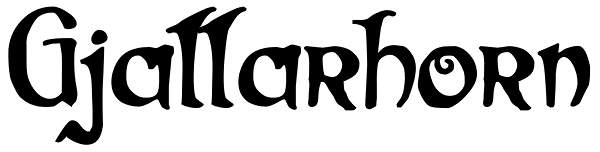
Gjallarhorn
Gjallarhorn is based on uncial-style lettering by artist Willy Pogany from his titles for Padraig Colum's classic collection of Scandinavian myths, The Children of Odin. It has various peculiar letter forms, and the font includes two or more...